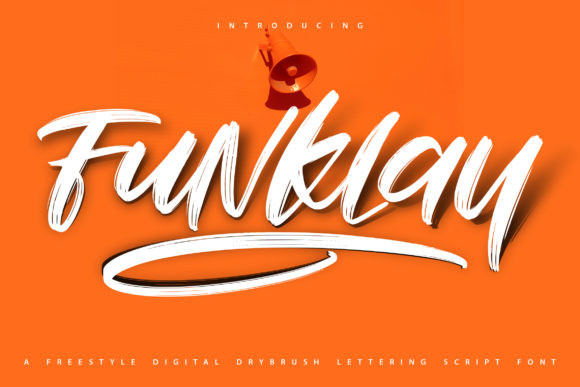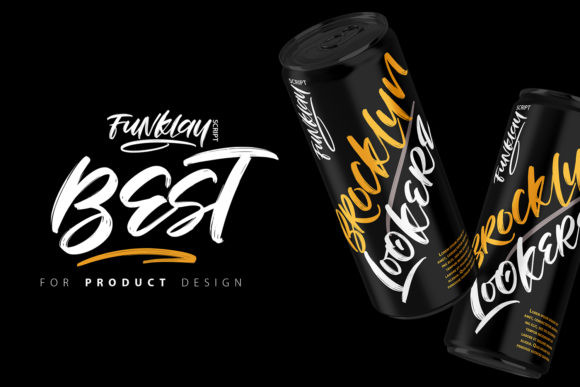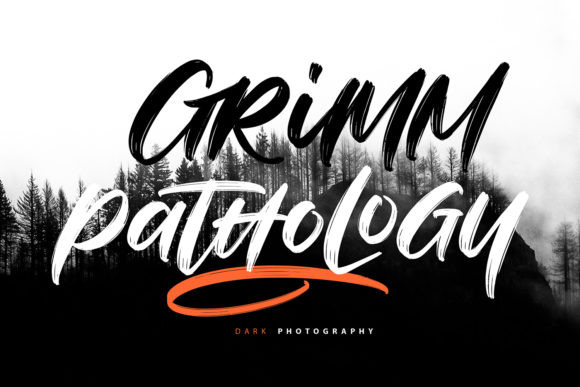
Funklay Font
Funklay is a casual and fashionable handwritten font. It has an all round style and it is incredibly charming. Funklay is PUA encoded which means you can access all of the glyphs and swashes with ease!